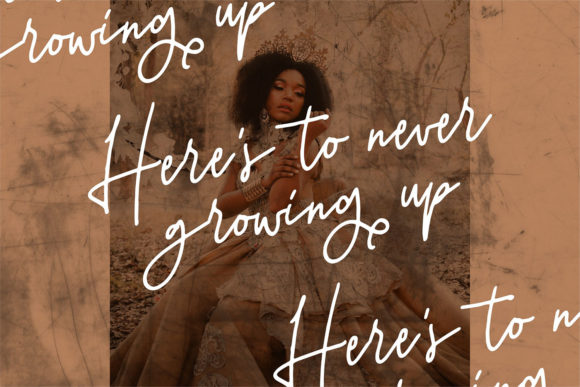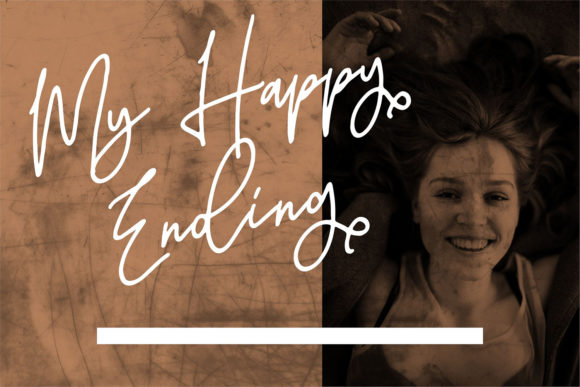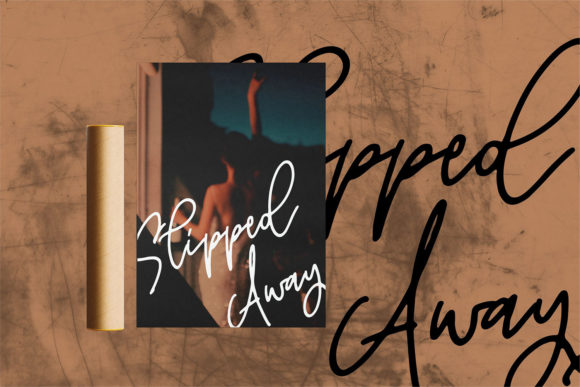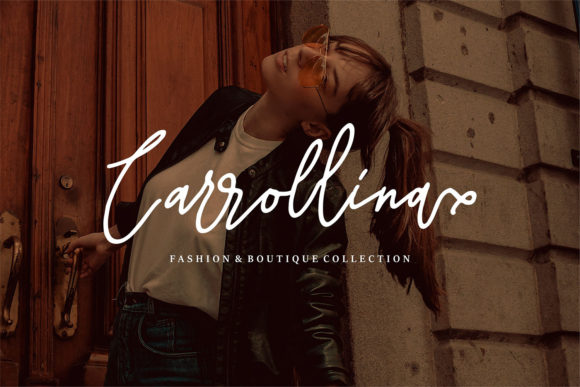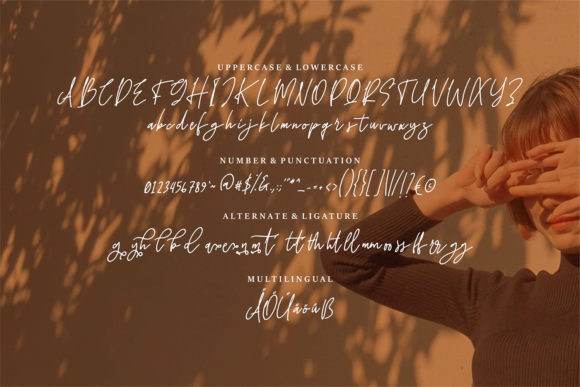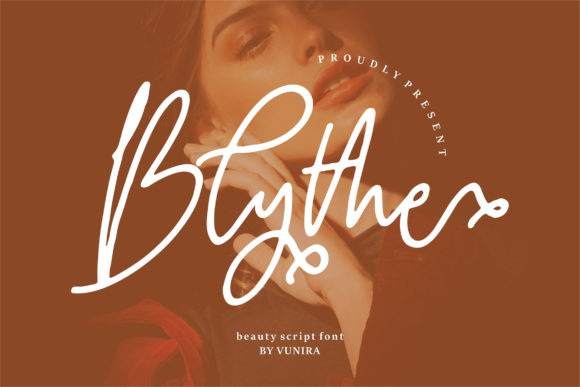
Blythe Font: Elevate Your Designs with Elegance and Sophistication
In the world of typography, a well-crafted font can make all the difference in elevating your designs from ordinary to extraordinary. Introducing Blythe Font, a stylish and elegant handwritten font that is sure to capture the hearts of designers and crafters alike. With its distinct and well-balanced letters, Blythe Font is a masterpiece that can add a touch of sophistication to any project.
The Distinctive Charm of Blythe Font
Blythe Font boasts a unique and refined aesthetic that sets it apart from other fonts. Its elegant handwritten style exudes a sense of luxury and refinement, making it perfect for designs that require a touch of high-end sophistication. Whether you’re working on a branding project, a wedding invitation, or a packaging design, Blythe Font is sure to make a lasting impression.
One of the standout features of Blythe Font is its PUA (Private Use Area) encoding. This means that you can access all of the glyphs and swashes with ease, giving you unparalleled creative control over your designs. With PUA encoding, you can effortlessly navigate the font’s extensive character set, including alternate letters, ligatures, and ornaments. This feature makes it easy to add intricate details and flourishes to your designs, taking them to the next level.
Key Features of Blythe Font
- Stylish and elegant handwritten font: Blythe Font’s refined aesthetic makes it perfect for designs that require a touch of sophistication.
- Distinct and well-balanced letters: The font’s carefully crafted letters ensure that your designs are clear, legible, and visually appealing.
- PUA encoded: Effortlessly access all glyphs and swashes, giving you creative control over your designs.
- Extensive character set: Includes alternate letters, ligatures, and ornaments to add intricate details to your designs.
Blythe Font is an excellent choice for designers and crafters who want to add a touch of elegance and sophistication to their projects. Whether you’re working on:
- Branding and logos: Create a lasting impression with Blythe Font’s refined and luxurious aesthetic.
- Wedding invitations and stationery: Add a touch of romance and sophistication to your wedding designs.
- Packaging and product design: Elevate your product designs with Blythe Font’s elegant and refined style.
- Digital and print media: Use Blythe Font to create stunning visual content for social media, blogs, and magazines.
Tips for Using Blythe Font
In conclusion, Blythe Font is a stylish and elegant handwritten font that is sure to elevate your designs to new heights. With its distinct and well-balanced letters, PUA encoding, and extensive character set, Blythe Font is the perfect choice for designers and crafters who want to add a touch of sophistication and elegance to their projects. So why wait? Get creative with Blythe Font today and take your designs to the next level!